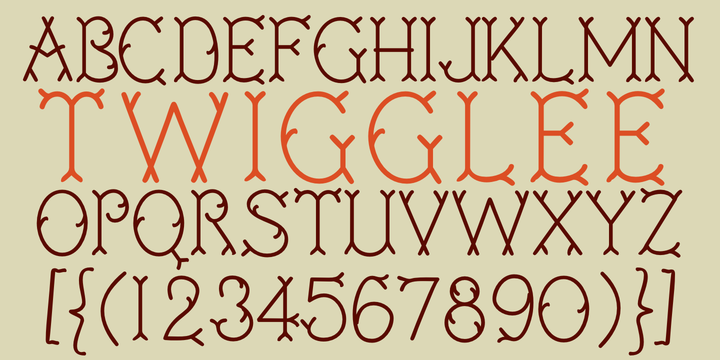
Twigglee
Designed by: Robert Schenk
Designed when: 1990
Design owned by: Ingrimayne Type
Twigglee
Twigglee was inspired by the hand lettering on the plates in a 19th century book on ornaments by Owen Jones. The upper-case letters are simply repeated on the lower-case keys.